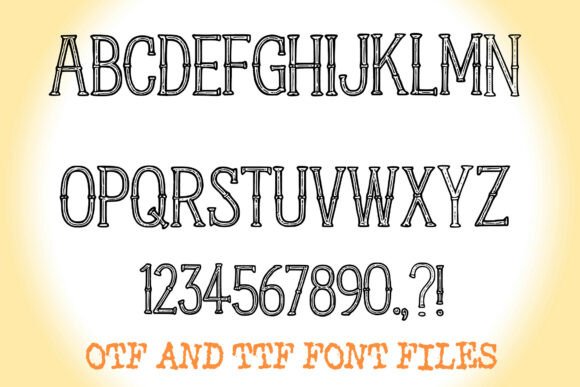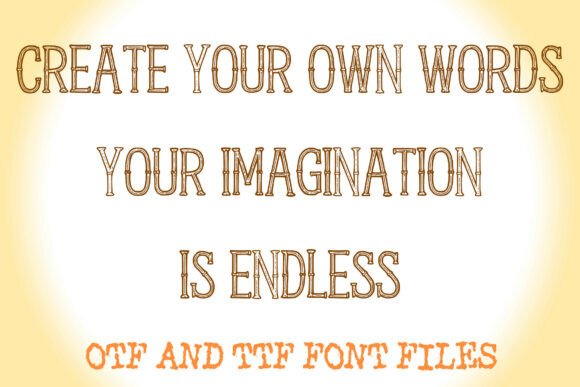
Unleashing Your Creativity with Bamboo Sticks Font
Have you ever sat down with a blank canvas, a pencil, and a burst of inspiration, only to let it slip away as you struggle to bring your vision to life? We’ve all been there. But what if you could take that initial spark and turn it into a stunning visual masterpiece, with the freedom to customize every detail to your heart’s desire?
Enter the Bamboo Sticks Font, a unique and versatile wooden-style font that lets you create your own words and color them to match your unique vision. With its quirky charm and adaptability, this font is a game-changer for designers looking to add a personal touch to their projects. Whether you’re a seasoned pro or just starting out, the Bamboo Sticks Font is a valuable tool in your creative arsenal, waiting to help you bring your most imaginative ideas to life.
- Unique Characteristics: The font features a unique bamboo stick design, giving it a distinctive and eye-catching appearance.
Bamboo Sticks Font Review
I was initially drawn to the Bamboo Sticks Font due to its unique and quirky aesthetic ✨. The font’s mix of bold and playful lines, reminiscent of traditional bamboo craftsmanship, makes it a standout in a crowded font market. The font’s versatility also makes it suitable for a wide range of design projects, from branding and advertising to digital products and editorial content.
- Works well for: The font’s bold lines and playful feel make it perfect for creating eye-catching headlines, titles, and headings ✨.
- Great for creative projects: Bamboo Sticks Font is ideal for designers who want to add a touch of whimsy and personality to their designs ✨.
- Wide range of applications: The font’s versatility makes it suitable for use in various design contexts, including branding, advertising, digital products, and editorial content ✨.
However, I do have some concerns about the font’s limitations ⚠️. While the font is suitable for many design projects, its bold lines and playful feel may not be the best choice for more formal or professional designs. Additionally, the font’s quirky aesthetic may not appeal to all audiences.
Overall, I think the Bamboo Sticks Font is a great choice for designers who want to add a touch of personality and whimsy to their designs. However, it may not be the best choice for all design projects, particularly those that require a more formal or professional tone.
Some popular use cases for the Bamboo Sticks font include:
– Creating rustic or vintage-inspired designs
– Adding a natural or earthy feel to your branding or marketing materials
– Using as a header or title font for a unique and eye-catching effect
– Experimenting with different font combinations to create a unique visual identity